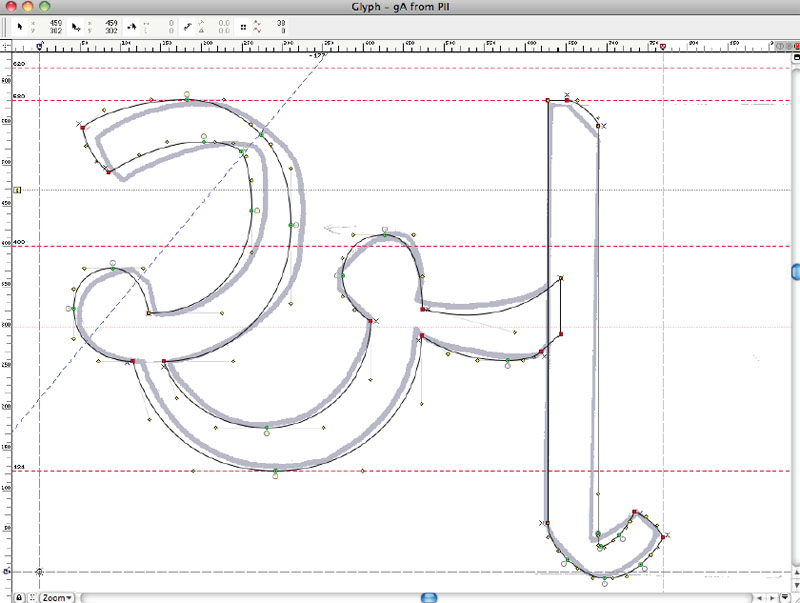
Design Case study
Typeface Design for Gujarati Script
Structure of Gujarati Script
Introduction
There is an important requirement in all Indian languages to have new typefaces to meet evolving needs of communication. A new text font was designed in this project, after studying aesthetic and functional requirements of text typefaces in the Indian context. The methodology followed in designing this typeface for body text use is also described in the report.
This design mainly focuses on structure and proportion of Gujarati script, advantages of using OpenType font format, comparative analysis of final design in terms of impersonal behavior of characters and effective functionality for print usage.